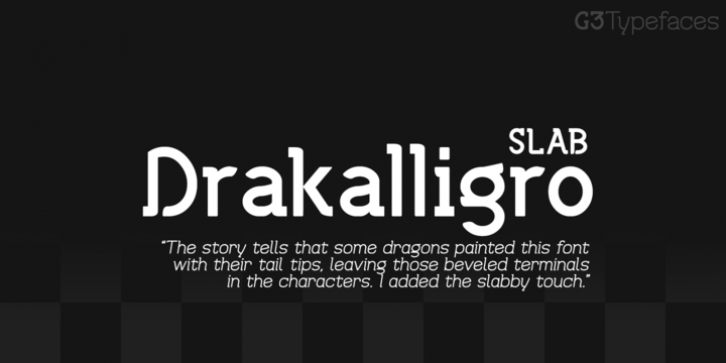
This variation of “Drakalligro” is its best look, the slab serifs in its characters give a good look and make this font something special. I added short slab serifs taking into account that the font is thick. Half slab serifs and some variations in their position are the special feature.